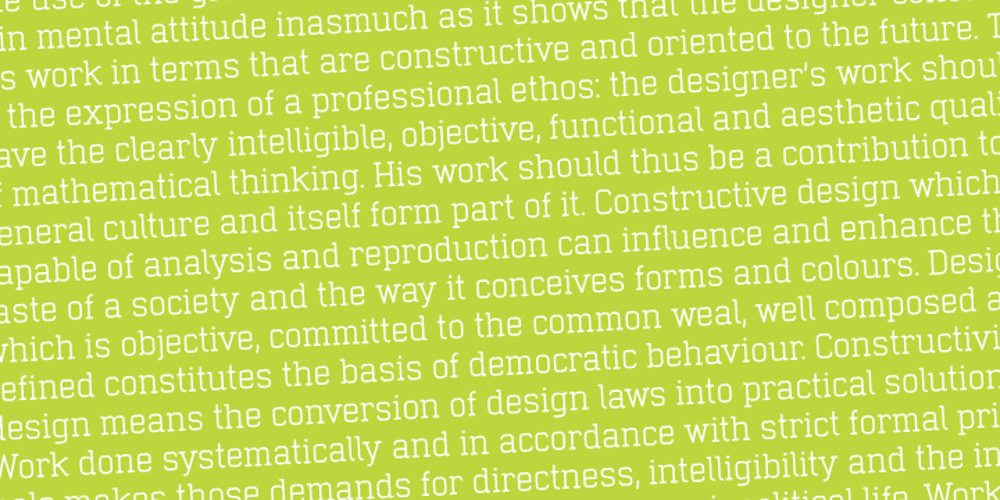
Neutraliser Alternate
Neutraliser Alternate font
Neutraliser Alternate Font Family was designed by Stuart Brown and published by HamburgerFonts. Neutraliser Alternate contains 6 styles and family package options. The Neutraliser family is a versatile collection of geometric-based fonts with 24 styles. The 6 Alternate styles are suitable for headlines and are complemented by the Sans and Serif styles suitable for small amounts text. The Caps styles allow for extra typographic variation within the family. Neutraliser is a direct result of the designers’ initial exploration of typography and is uncompromising in its geometric nature. As the name suggests, the typeface celebrates the precision of the digital medium as a drawing tool in which the critical points that make up a letterform can be almost ‘plotted’ according to a grid-based logic.